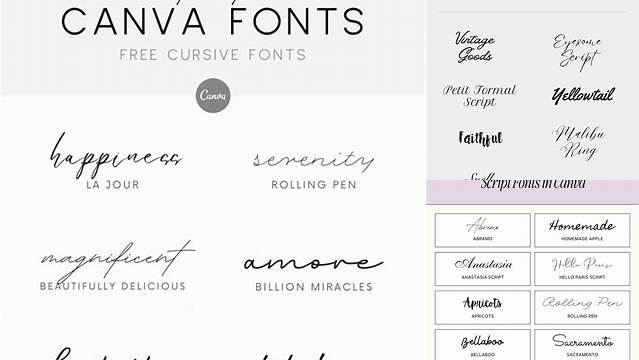
Elegant Cursive Fonts In Canva: Design Guide
Hey guys! Are you looking to add a touch of sophistication and elegance to your Canva designs? Well, you've come to the right place! In this comprehensive guide, we're diving deep into the world of elegant cursive fonts in Canva. Cursive fonts, with their flowing strokes and handwritten charm, can instantly elevate your projects, whether you're crafting wedding invitations, designing social media graphics, or creating branding materials. This article will help you navigate the vast library of fonts available in Canva, identify the ones that exude elegance, and learn how to effectively incorporate them into your designs. Get ready to transform your creations with the timeless beauty of cursive! Understanding the nuances of font pairing, kerning, and overall design harmony is crucial. Let's embark on this creative journey together and unlock the secrets to using elegant cursive fonts in Canva to their fullest potential.
Why Choose Cursive Fonts?
Cursive fonts bring a unique personality and flair to any design. They evoke feelings of elegance, sophistication, and personal touch, which makes them perfect for a wide range of projects. Think about it: a carefully chosen cursive font can transform a simple invitation into a cherished keepsake, or add a touch of warmth to your brand's visual identity. They're not just fonts; they're a way to communicate emotions and create a connection with your audience. But why are cursive fonts so effective? It's because they mimic handwriting, which adds a human element to your designs. In a world dominated by digital communication, this personal touch can make your work stand out. Imagine receiving a handwritten letter – it feels much more special than a typed email, right? Cursive fonts can evoke that same feeling in your designs. They can also convey a sense of history and tradition, which can be particularly useful for brands or projects that want to project a sense of heritage or craftsmanship. From classic scripts to modern calligraphy, there's a cursive font out there to suit every style and purpose. However, it's important to use them judiciously. Overusing cursive fonts, or using them in the wrong context, can actually detract from your design. The key is to find the right balance and use them in a way that enhances your overall message. So, let's explore the different types of cursive fonts and learn how to choose the perfect one for your next project!
Top Elegant Cursive Fonts in Canva
Canva boasts a treasure trove of cursive fonts, but let's highlight some of the most elegant and versatile options that will make your designs shine. We'll explore fonts that range from classic and formal to modern and whimsical, ensuring you find the perfect match for your project. First up, we have "Great Vibes," a beautifully flowing script that exudes sophistication and is perfect for wedding invitations or elegant headings. Its graceful curves and delicate strokes create a sense of timeless beauty. Then there's "Parisienne," a font that captures the romantic charm of Paris. Its elegant loops and flourishes make it ideal for designs that need a touch of French flair. If you're looking for something a bit more modern, "Hello Script" is a fantastic choice. This font has a clean and contemporary feel, while still maintaining the elegance of cursive. It's perfect for logos, social media graphics, or any project that needs a stylish and approachable look. For a touch of whimsy, consider "Honey Script." This font has a playful and friendly vibe, making it great for branding projects or designs that target a younger audience. Its bouncy baseline and charming letterforms add a touch of personality to any project. And let's not forget "Alex Brush," a bold and legible script that's perfect for headlines and subheadings. Its strong strokes and confident curves command attention, making it a great choice for projects that need to make a statement. These are just a few examples of the many elegant cursive fonts available in Canva. We'll delve deeper into each of these fonts, exploring their unique characteristics and how to best use them in your designs. So, let's continue our journey and discover even more hidden gems within Canva's font library!
Great Vibes
Great Vibes truly lives up to its name! This font is a showstopper when it comes to elegance and sophistication. It's a classic script font with flowing lines and graceful curves that evoke a sense of timeless beauty. Imagine using it for wedding invitations – the calligraphy-inspired letterforms will instantly add a touch of romance and formality. But Great Vibes isn't just for weddings; it's also an excellent choice for logos, branding materials, and any project that needs a touch of refined charm. The key to using Great Vibes effectively is to let it be the star of the show. Its delicate strokes can get lost if it's paired with too many other decorative elements. Instead, try pairing it with a simple sans-serif font for a clean and balanced look. Think of a classic pairing like Great Vibes for the headline and a font like Open Sans or Montserrat for the body text. This will ensure that your design remains legible and visually appealing. Kerning is also crucial when working with Great Vibes. Because the letters are so intricately connected, adjusting the spacing between them can significantly impact the overall look and feel. Experiment with different kerning settings to achieve the perfect balance and ensure that the font is easy to read. And remember, less is often more. Avoid overusing Great Vibes; a little goes a long way. Use it sparingly to highlight key words or phrases, and let its inherent elegance do the rest. With its timeless appeal and graceful presence, Great Vibes is a must-have in any designer's toolkit. So, go ahead and experiment with this beautiful font and see how it can elevate your designs!
Parisienne
Ah, Parisienne – the font that instantly transports you to the romantic streets of Paris! This elegant script captures the essence of French sophistication with its delicate loops, graceful flourishes, and effortlessly chic style. It's like a handwritten letter from a Parisian artist, adding a touch of old-world charm to any design. Parisienne is particularly well-suited for projects that evoke a sense of luxury, romance, or classic elegance. Think about using it for invitations, stationery, or branding materials for businesses in the fashion, beauty, or hospitality industries. Its graceful curves and refined details make it a perfect choice for projects that need to exude a sense of timeless beauty. When using Parisienne, consider the overall tone and message of your design. This font is best paired with other elegant and understated elements. Avoid using it with overly bold or modern fonts, as this can create a jarring contrast. Instead, opt for classic serif fonts like Garamond or Times New Roman for body text, or a clean sans-serif like Helvetica for headings. The key is to create a harmonious balance between the fonts, allowing Parisienne to shine without being overshadowed. Color is also an important consideration. Parisienne looks stunning in classic color palettes like black and white, gold and cream, or soft pastels. These colors complement the font's elegance and create a sense of sophistication. Experiment with different combinations to find the perfect palette for your project. And don't be afraid to add a touch of Parisian flair with subtle design elements like delicate borders, floral motifs, or vintage-inspired illustrations. With its timeless charm and effortless elegance, Parisienne is a font that will never go out of style. So, embrace its Parisian spirit and let it add a touch of je ne sais quoi to your designs!
Hello Script
If you're searching for a cursive font that bridges the gap between classic elegance and modern style, look no further than Hello Script. This font offers a fresh and contemporary take on traditional scripts, making it incredibly versatile for a wide range of design projects. Hello Script maintains the flowing lines and handwritten feel of cursive fonts, but with a cleaner and more streamlined aesthetic. This makes it an excellent choice for logos, social media graphics, websites, and any project that needs a touch of sophistication without feeling overly formal. Its readability is another key advantage. While some cursive fonts can be difficult to decipher, Hello Script is designed with clarity in mind. The letterforms are distinct and well-defined, ensuring that your message is communicated effectively. This makes it a particularly good choice for projects that require a balance of style and readability, such as website headers or marketing materials. When pairing Hello Script with other fonts, consider its modern sensibility. Sans-serif fonts like Montserrat, Open Sans, or Lato work particularly well, creating a clean and contemporary contrast. You can also experiment with serif fonts like Playfair Display for a more elegant and sophisticated look. The key is to choose fonts that complement Hello Script's style without overwhelming it. Color is also a powerful tool when working with Hello Script. This font looks stunning in a variety of color palettes, from classic black and white to bold and vibrant hues. Experiment with different colors to find the perfect match for your project's overall tone and message. And don't be afraid to get creative with your design elements. Hello Script pairs well with a variety of graphic elements, from geometric shapes to hand-drawn illustrations. Its versatility makes it a great choice for designers who want to create unique and eye-catching designs. With its modern elegance and effortless style, Hello Script is a valuable addition to any font library. So, embrace its versatility and let it add a touch of contemporary charm to your next project!
How to Use Cursive Fonts Effectively in Canva
Now that we've explored some of Canva's most elegant cursive fonts, let's dive into the practical aspects of using them effectively in your designs. It's not just about choosing a beautiful font; it's about knowing how to incorporate it seamlessly into your overall design. Here are some key tips to keep in mind:
- Pairing is Key: Cursive fonts often work best when paired with simpler fonts, such as sans-serif or clean serif fonts. This creates a visual hierarchy and ensures readability. Imagine a delicate cursive headline paired with a crisp sans-serif body text – the contrast adds visual interest and makes the design more balanced.
- Legibility Matters: While cursive fonts are beautiful, they can sometimes be difficult to read, especially in large blocks of text. Use them sparingly, for headlines, subheadings, or short phrases. Make sure the font size is large enough to be easily legible, and avoid using cursive fonts for body text.
- Consider the Context: The font you choose should align with the overall tone and message of your design. A formal script might be perfect for a wedding invitation, but less appropriate for a casual social media graphic. Think about the emotions you want to evoke and choose a font that reflects those feelings.
- Kerning and Spacing: Pay attention to the kerning (the space between individual letters) and the overall spacing of your text. Adjusting these settings can significantly improve the readability and visual appeal of your cursive fonts. Sometimes, a little extra space can make a big difference.
- Color and Contrast: Choose colors that complement your cursive font and ensure sufficient contrast between the text and the background. Light cursive fonts on a dark background, or vice versa, can create a striking visual effect.
Now go forth and create some magic with these beautiful fonts! Remember to always consider your audience, the message you want to convey, and the overall aesthetic you're aiming for. With the right cursive font and a little bit of creativity, you can transform your designs from ordinary to extraordinary. And most importantly, have fun with it! Design is a journey of exploration and discovery, so don't be afraid to experiment and push your boundaries. You might just surprise yourself with what you can create. So, what are you waiting for? Dive into Canva's font library, explore the world of cursive scripts, and let your imagination soar! The possibilities are endless, and the results can be truly breathtaking. So, embrace the elegance, embrace the creativity, and embrace the power of cursive fonts in Canva. Your designs will thank you for it!